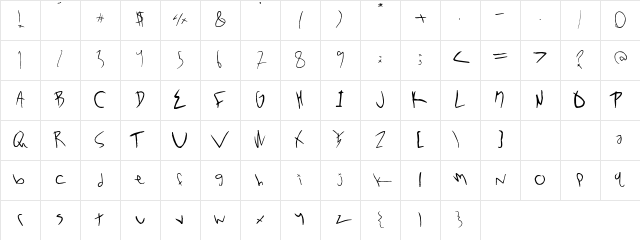
Complete NoXWay NoXWay glyph index. Displaying only characters natively supported by NoXWay NoXWay font.
NoXWay is a composed and adaptable typeface that performs quietly and consistently across a wide range of design contexts.